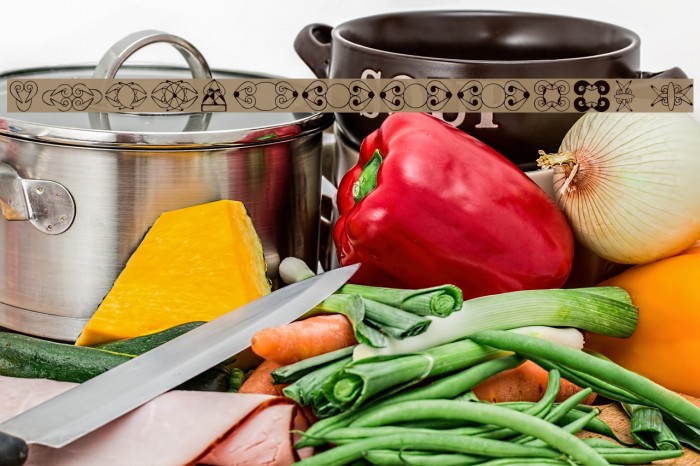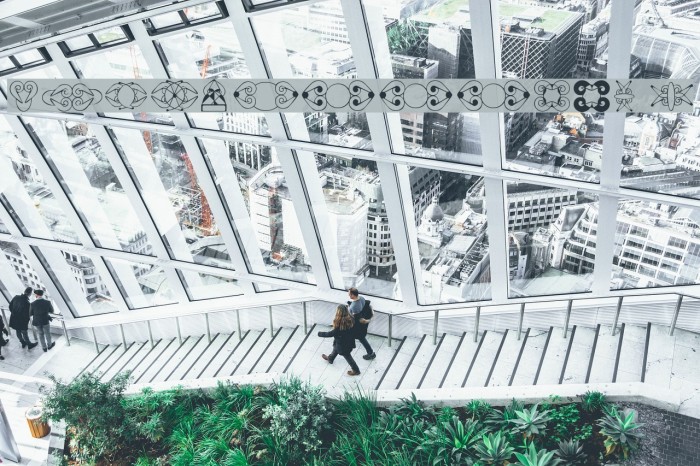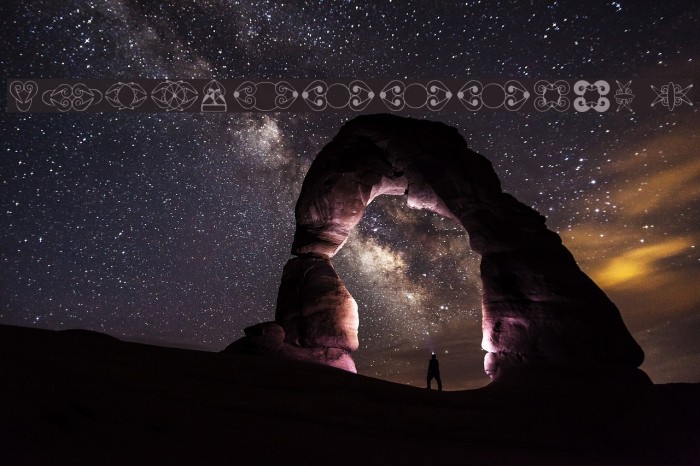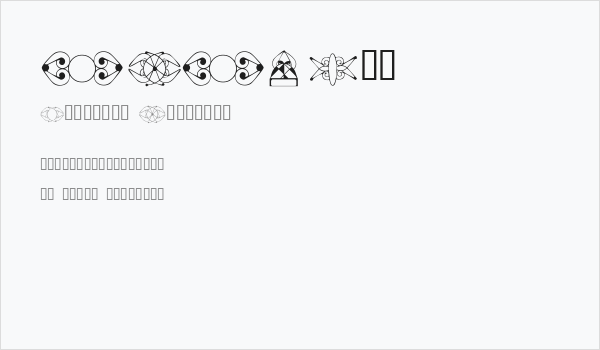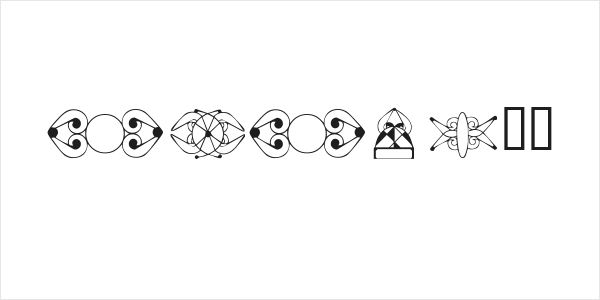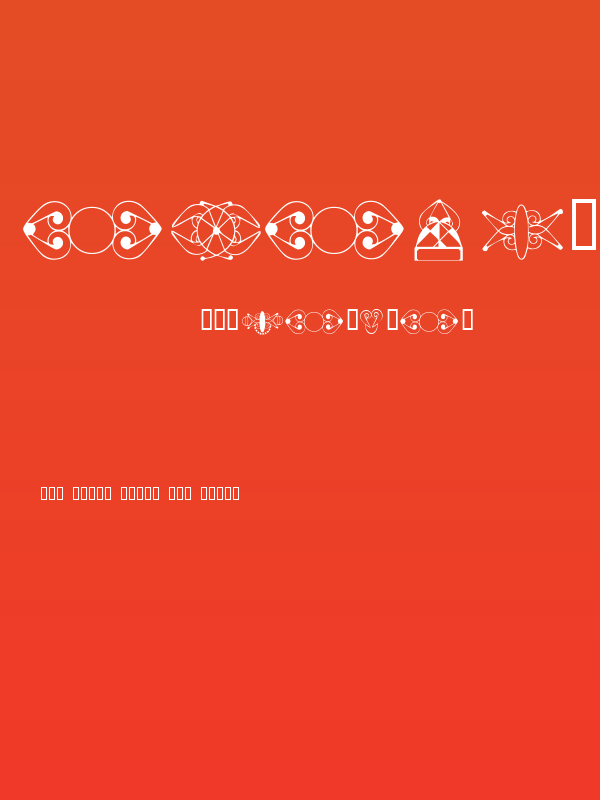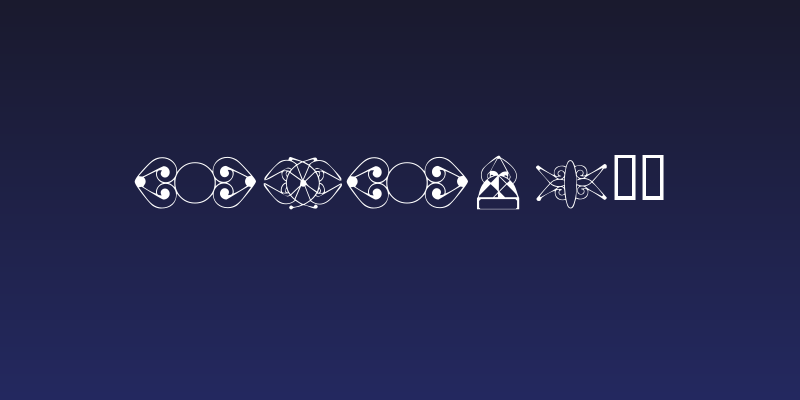
HDGEMS7 Font
HDGEMS7 Description
Highly decorative and ornamental dingbat font featuring intricate swirls, heart motifs, and stylized insect-like shapes. The glyphs are complex, with a focus on symmetrical, ornate designs rather than traditional alphanumeric characters.
| Overall Style | Decorative, Ornamental, Artistic |
| Use Case | Borders, Dividers, Decorative accents |
| Proposed Projects | Invitations, decorative borders, scrapbooking, certificates, artistic dividers. |